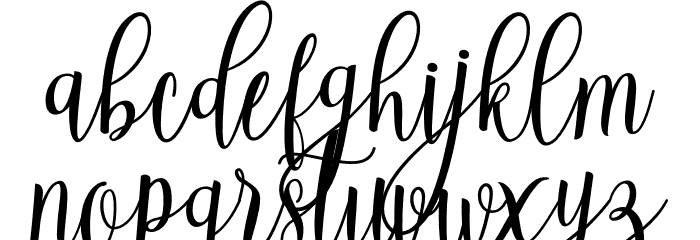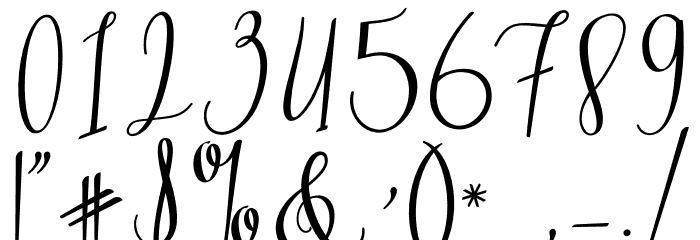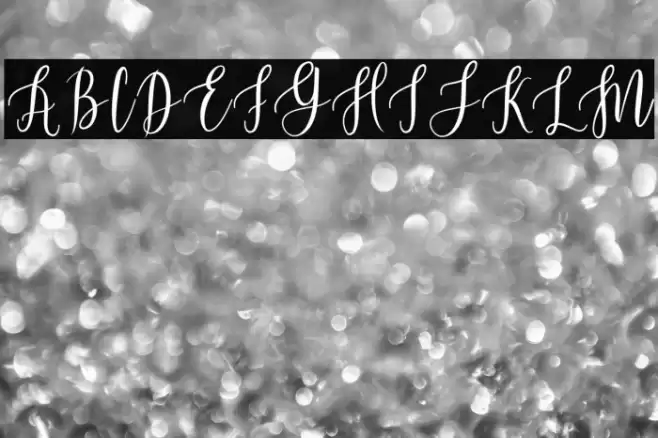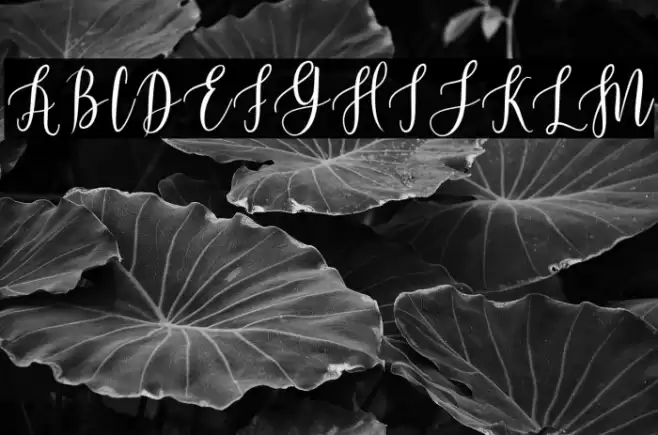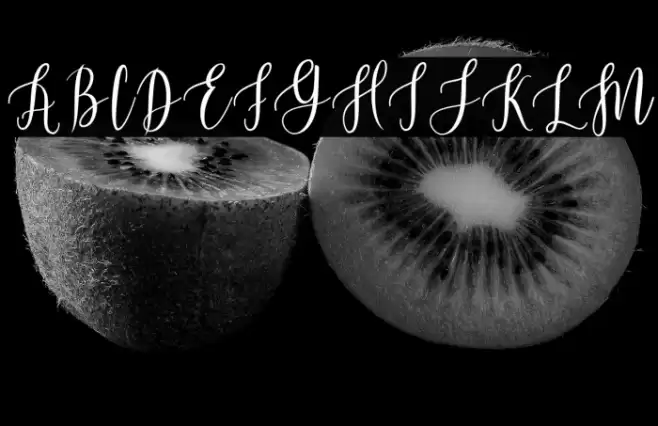
BeautifulScript-Light Font
This elegant script font features flowing, interconnected letters that mimic the fluidity of cursive handwriting. The characters are slender and elongated, with graceful loops and swirls that add a touch of sophistication. The uppercase letters are particularly ornate, with decorative flourishes that enhance their visual appeal. The lowercase letters maintain a consistent style, complementing the uppercase with their smooth curves. Numbers and special characters are designed with the same attention to detail, ensuring a cohesive look across all elements. This font exudes a sense of elegance and charm, making it ideal for projects that require a personal, handwritten touch.
A graceful script font with flowing, interconnected letters and elegant flourishes.
- Font: BeautifulScript-Light
- Proposed Projects: Ideal for wedding invitations, greeting cards, branding, and any project that requires a personal, elegant touch.
- Category: Script
- Weight: Light
- Overall Style: Elegant
- Use Case: Logos, Invitations, Greeting cards